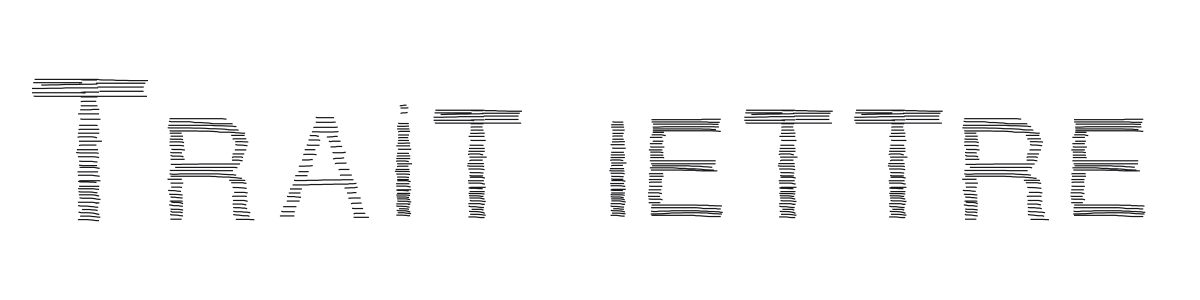
Trait lettre
Trait lettre is a sans-serif display font where every character is rendered as a stack of fine horizontal lines rather than solid strokes. The underlying structure is clean and grotesque-like, but the ruling pattern gives it an analog, screen-interference quality. It works best at large sizes where the texture reads clearly.